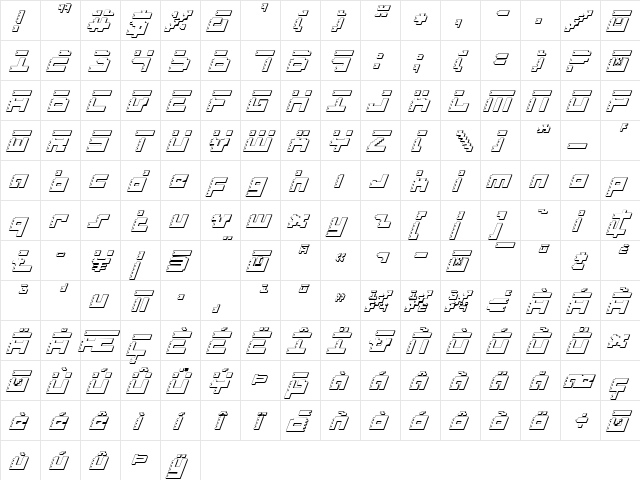
Roid Rage Shadow Italic Shadow Italic
Design Context for Roid Rage Shadow Italic Typeface
Roid Rage Shadow Italic is built around its visual character rather than neutral utility — its distinctive forms are designed to make an impression at display sizes. The slanted form adds forward momentum and visual energy.
Font Pairing: Pair with a clean neutral sans-serif for body copy to let Roid Rage Shadow Italic's character lead without overwhelming the composition.
Pro Tip: Use Roid Rage Shadow Italic exclusively at display sizes — it was designed to be seen, not read at length. Let a neutral companion handle body copy.